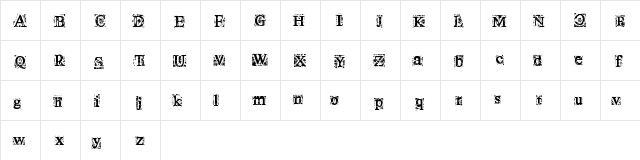
Times New Omen Regular
Design Context for Times New Omen Typeface
Times New Omen takes a measured approach to typography — its balanced proportions and neutral character make it a reliable workhorse for both digital and print work.